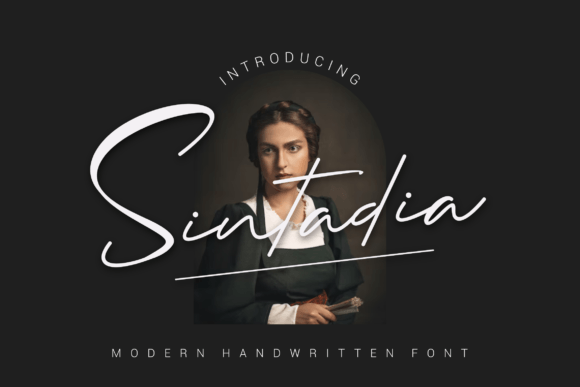
Welcome to the realm of typography, where art meets expression, and Sintadia Font, a captivating script typeface, takes center stage. An exquisite creation by kalingga.albert, Sintadia breathes life into your designs, enhancing them with an aura of authenticity and charm.
With its delicate strokes and free-flowing curves, Sintadia captures the essence of handwritten elegance. Each letter dances gracefully across the page, evoking a sense of intimacy and artistry. Whether crafting a personal logo, designing a captivating t-shirt, or propelling your esports team to victory, Sintadia effortlessly elevates your projects to new heights of visual appeal.
Immerse yourself in the versatility of Sintadia, a font that seamlessly adapts to a multitude of contexts. Its playful personality lends itself perfectly to whimsical invitations, adding a touch of magic to life's special moments. Unleash your creativity and watch as menus, posters, and social media posts transform into captivating works of art.
Step into the world of Sintadia, where your designs take flight. Explore the realm of possibility and witness how effortlessly this font captivates your audience. Its timeless beauty transcends trends, ensuring that your creations remain relevant and striking for years to come.